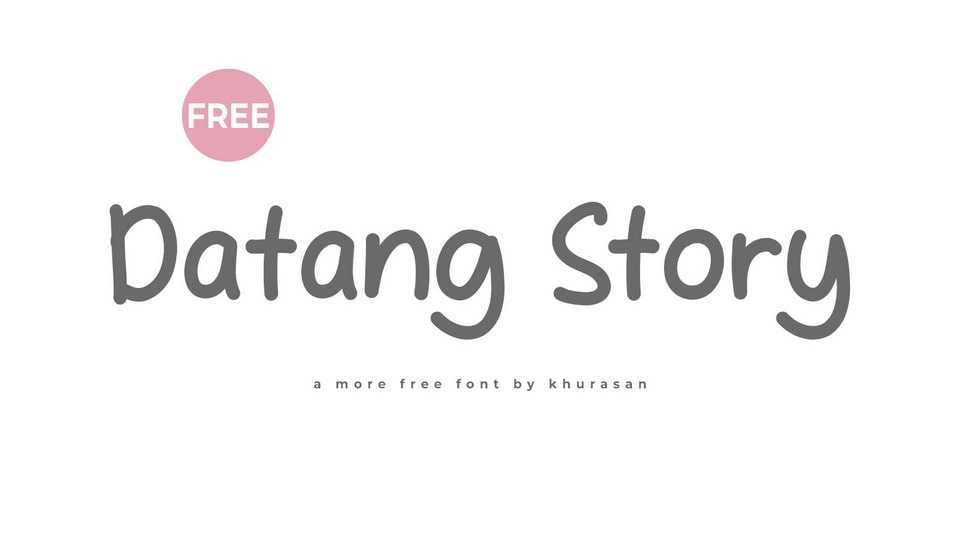
Download Datang Story font, a playful handwritten comic typeface that brings a sense of fun and whimsy to your designs. Its handwritten aesthetic adds a touch of authenticity to your text.